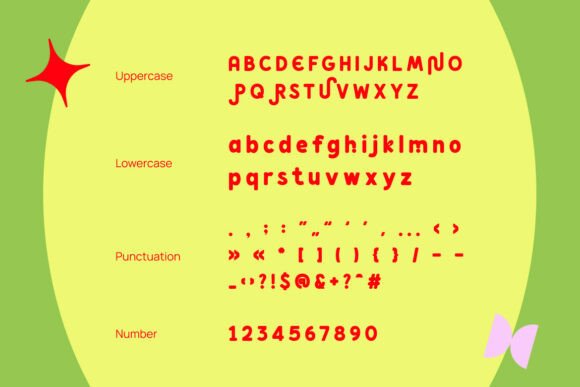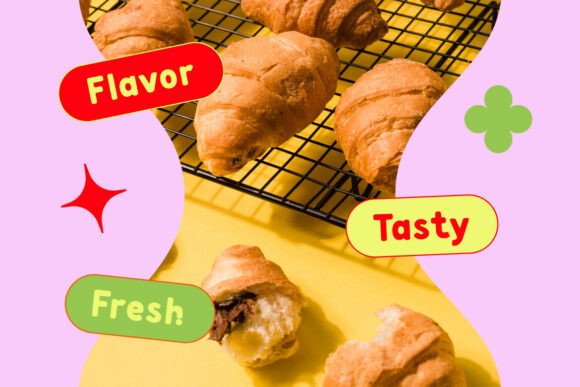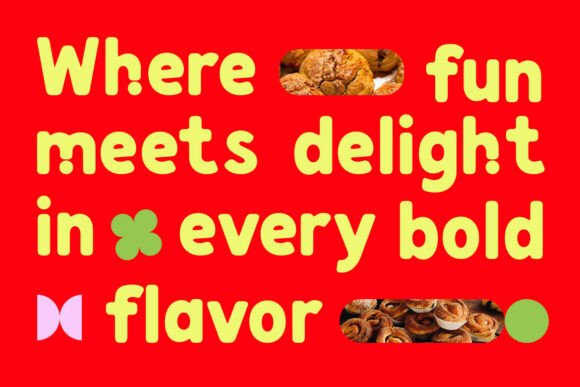
Introduction to Monraha Font
As a designer, there’s nothing quite like the thrill of stumbling upon a font that perfectly captures the essence of your creative vision. For me, that moment came when I discovered the Monraha Font – a display font that embodies the warmth and approachability of modern branding.
With its soft, rounded corners and bouncy rhythm, Monraha Font is the perfect design resource for projects that need to feel welcoming and full of flavor. From food and beverage packaging to organic lifestyle brands, Monraha Font is a high-quality choice that’s sure to elevate your creative project. Whether you’re working with a transparent background or need a font that’s easy to read on a variety of materials, Monraha Font is a free download that’s worth exploring.
As a valuable addition to any designer’s toolkit, Monraha Font offers a chunky weight that remains incredibly legible, making it a great choice for a range of creative applications.
Key Features of Monraha Font
- High-quality design resource ideal for creative projects, offering a unique and stylish touch.
- Perfect for use in a variety of creative projects, including logos, branding, and marketing materials, thanks to its modern and sophisticated design.
- Monraha Font is a highly versatile design resource, suitable for use in both digital and print media, including websites, social media, and business cards.
Honest Review: Monraha Font
I recently stumbled upon the Monraha Font while searching for high-quality design resources for a creative project. I was excited to give it a try and see how it would fit into my design workflow.
- The Monraha Font offers a wide range of styles and weights, making it a versatile choice for various design applications.
- The font is highly legible, even on smaller scales, which is a must-have for any design project.
- The Monraha Font may not be the best choice for very complex or technical designs, as it can sometimes struggle to convey the intended meaning.
- The font may not be as unique or eye-catching as some other design resources, which could make it blend in with the crowd.
Overall, I’m impressed with the Monraha Font and would definitely consider using it for future design projects. Its high quality and versatility make it a valuable addition to any designer’s toolkit.